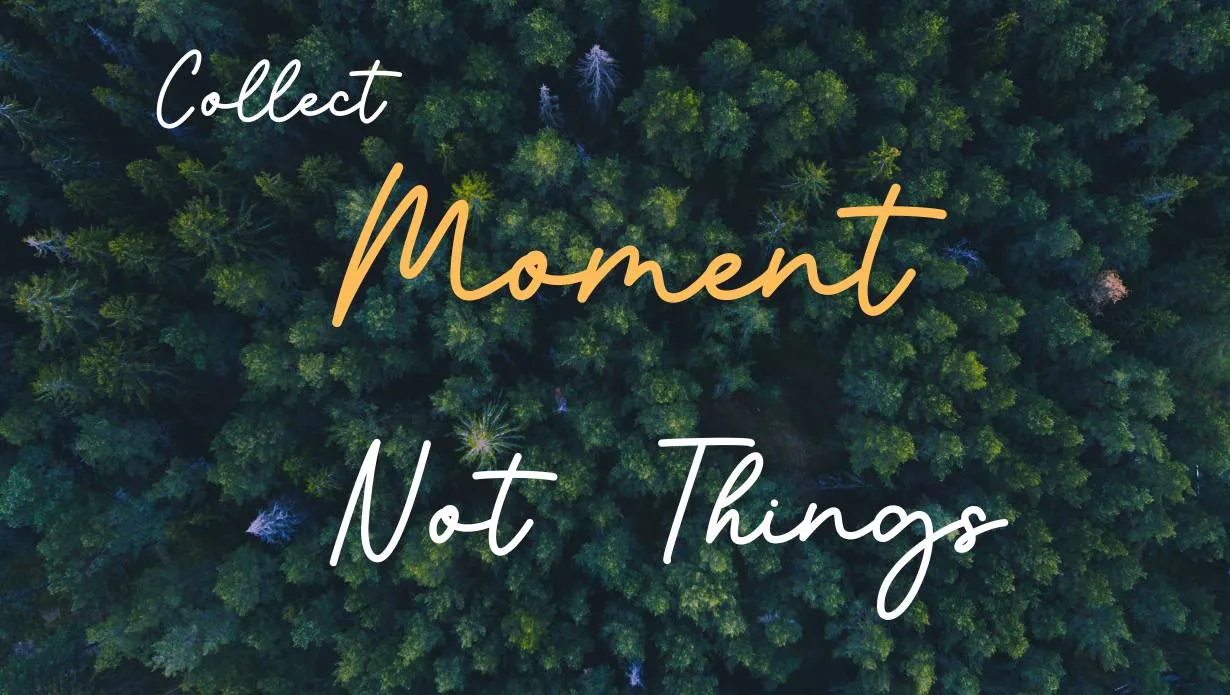
Magical Font belongs to the category of the handwritten family that is designed by the famous font Studio, Graphix Line.
Its design is rare that appears to have connected letters and is pretty much versatile which makes it unique.